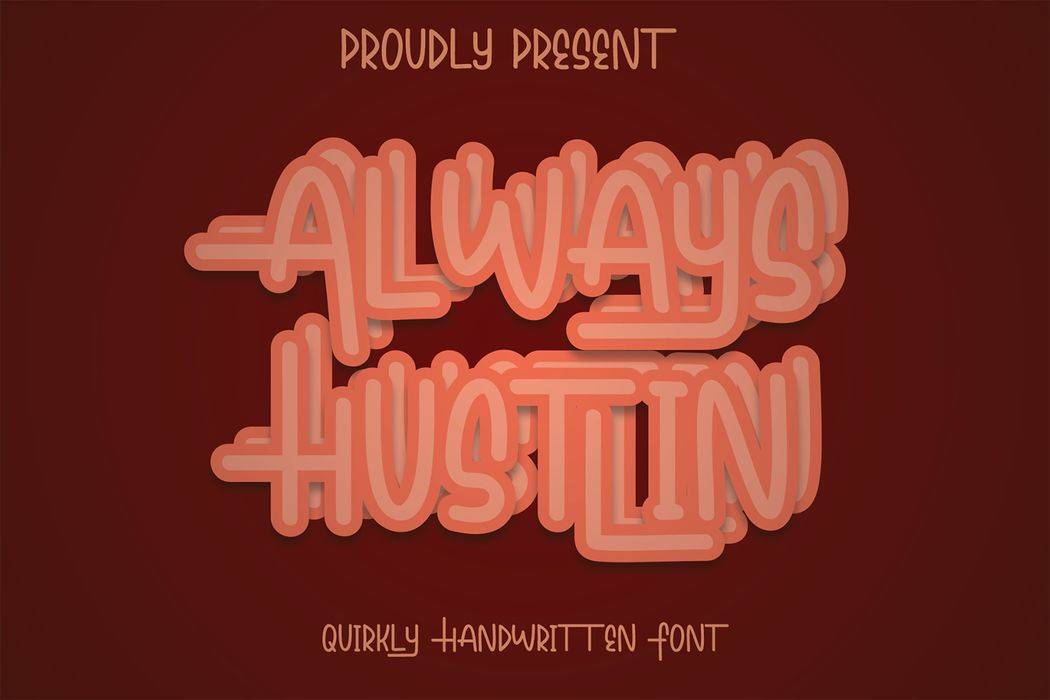
Always Hustlin is a quirky, handwritten-style sans serif font with tall, narrow letterforms and playful, irregular lines that give it a casual, urban vibe. Its unique crossing strokes and slightly offbeat shapes create an energetic and informal personality, making it perfect for creative headlines, streetwear branding, or youthful, edgy design projects. This font stands out with its lively, hand-drawn character, adding a distinctive, approachable flair to any visual style.
Always Hustlin Font
About Always Hustlin Font